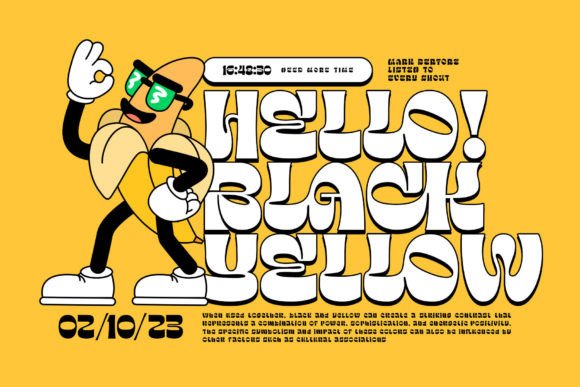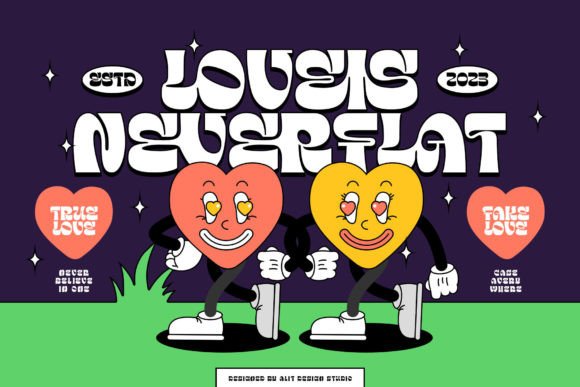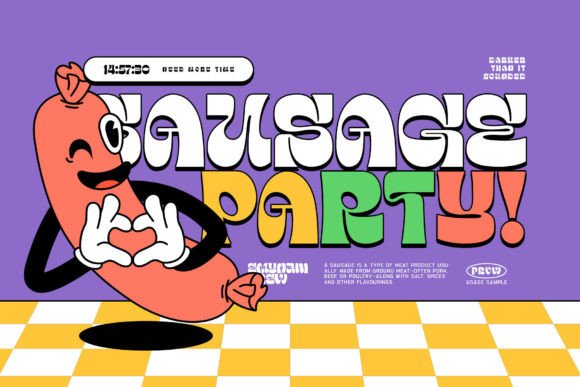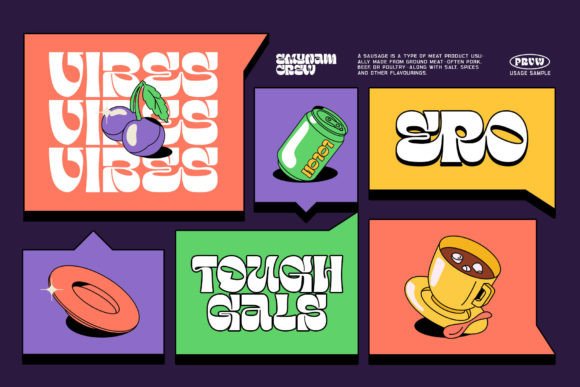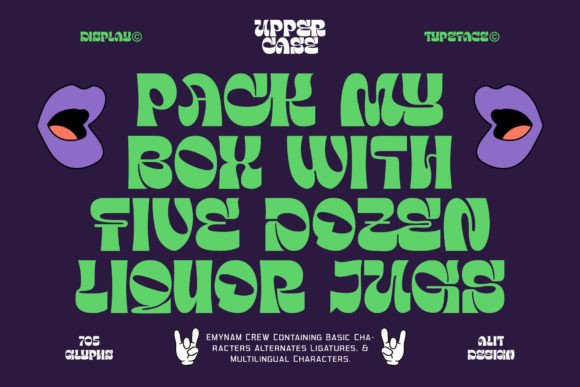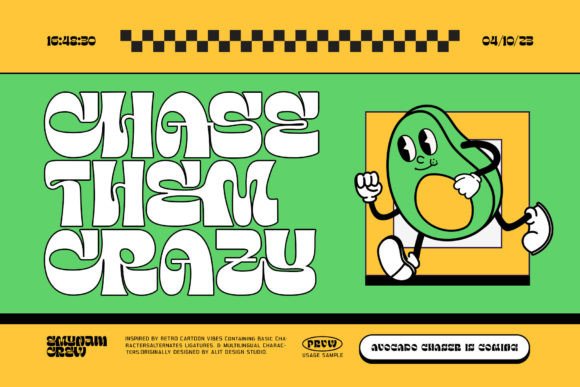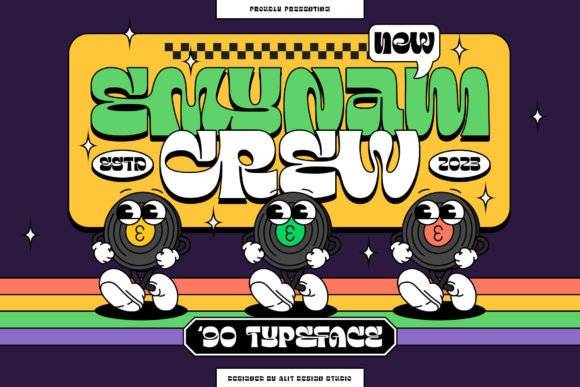
Introducing the Emynam Crew: A Funky Retro Display Typeface
Are you ready to groove to the rhythm of creativity and nostalgia? Say hello to the Emynam Crew, the font that’s bringing back the funky retro vibes of yesteryears with a modern twist. With its unique blend of style, flair, and a whopping 705 glyphs, this typeface is a must-have for anyone looking to make a statement.
Retro Vibes: A Blast from the Past
Emynam Crew captures the essence of the 70s and 80s with its bold, funky letterforms. It’s like a blast from the past, perfect for adding a touch of nostalgia to your designs. Imagine creating posters, album covers, or branding materials that transport your audience back to an era of disco, funk, and rock. With Emynam Crew, you can infuse your designs with the spirit of yesteryears, while still maintaining a modern edge.
Unleash Your Creativity with Ligatures and Alternatives
Dive into the world of creativity with multiple ligatures and alternative characters. Emynam Crew offers a wide range of options to mix and match, allowing you to create stunning, one-of-a-kind typographic compositions. Whether you’re designing posters, album covers, branding materials, or anything else, Emynam Crew gives you the freedom to express your unique vision.
Stylish Display: Make a Bold Statement
Make a bold statement with Emynam Crew as your headline or display font. Its stylish and eye-catching design is sure to grab attention and leave a lasting impression. Use it to create striking titles, headings, or slogans that demand attention. With Emynam Crew, you can add a touch of glamour and sophistication to your designs, while still maintaining a funky and retro vibe.
Key Features: What Sets Emynam Crew Apart
- Retro Vibes: Emynam Crew captures the essence of the 70s and 80s with its bold, funky letterforms.
- Ligatures and Alternatives: Multiple ligatures and alternative characters allow for creative freedom and unique typographic compositions.
- Stylish Display: Make a bold statement with Emynam Crew as your headline or display font.
- 705 Glyphs: A vast range of glyphs provides endless options for creative expression.
Emynam Crew is a must-have for designers and crafters looking to add a touch of nostalgia and funk to their designs. Whether you’re working on a personal project or a client’s brief, this font is sure to inspire creativity and bring a unique edge to your work. Use it for:
- Poster design
- Album covers
- Branding materials
- Logos
- Signage
Get Ready to Groove with Emynam Crew
Don’t miss out on the opportunity to add Emynam Crew to your font collection. With its funky retro vibes, stylish display, and creative ligatures and alternatives, this typeface is sure to become a staple in your design workflow. Get ready to groove to the rhythm of creativity and nostalgia with Emynam Crew.
In conclusion, Emynam Crew is a game-changing font that’s sure to bring a touch of nostalgia and funk to your designs. With its unique blend of style, flair, and creative options, this typeface is a must-have for designers and crafters looking to make a statement. So why wait? Get your hands on Emynam Crew today and start grooving to the rhythm of creativity!